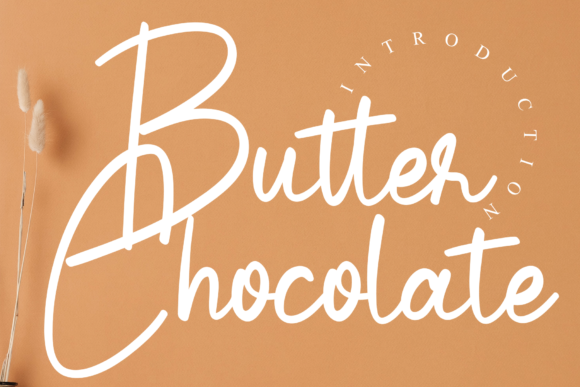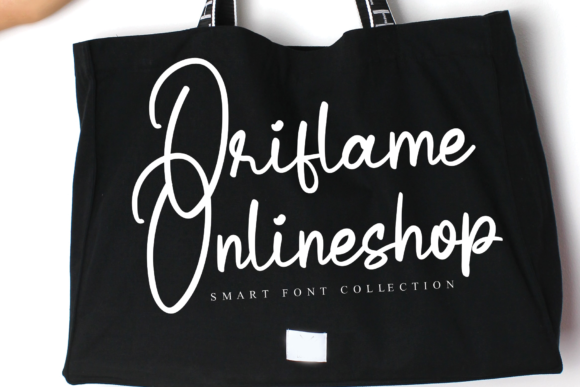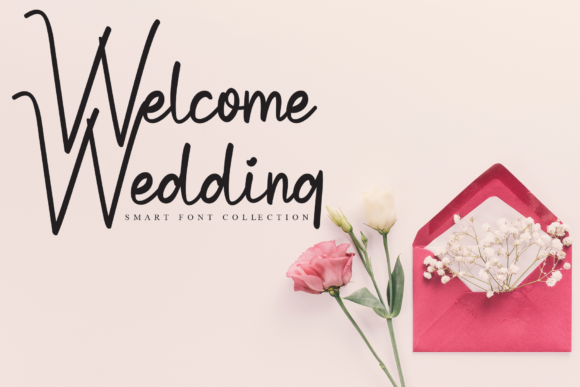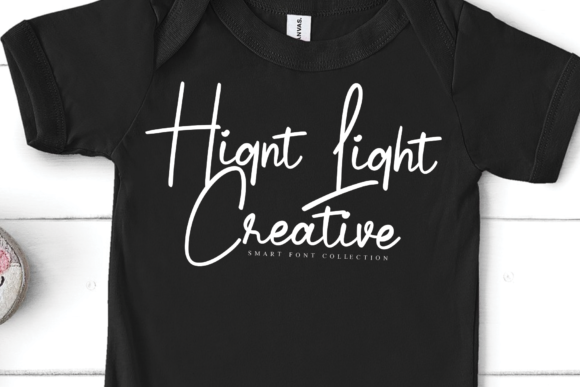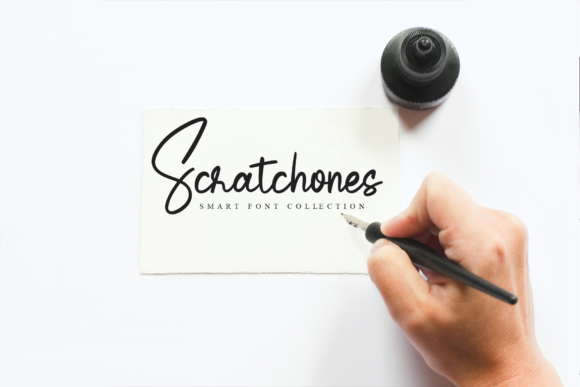
Butter Chocolate Font
About Butter Chocolate Font
Butter Chocolate is a beautiful light handwritten font with a unique feel and a stunning impact. It will add a luxury spark to any design project that you wish to create!